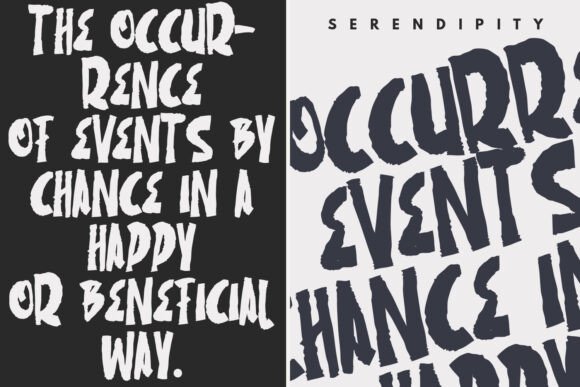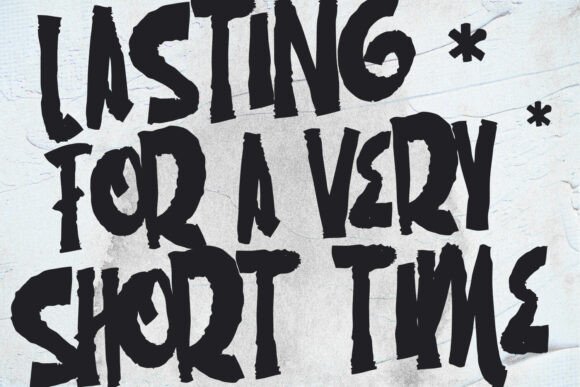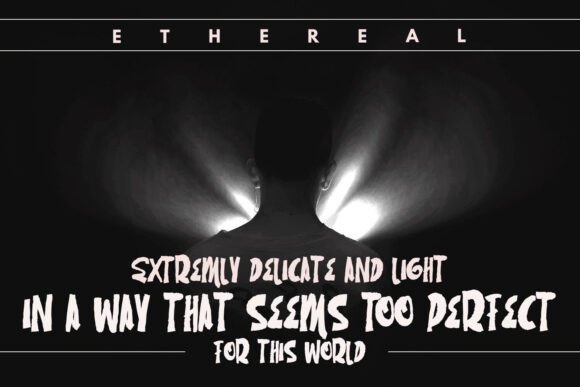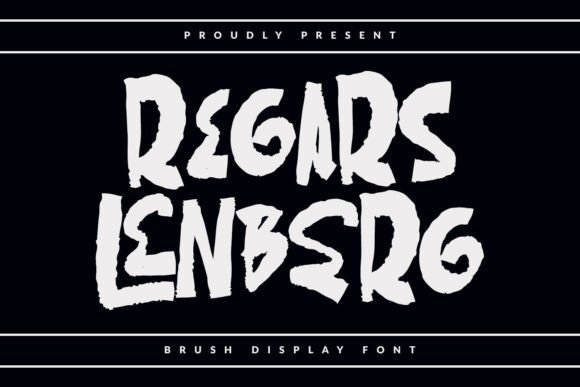
Introduction to Regars Lenberg Font
Regars Lenberg Brush Texture Display Font.
Give your designs an authentic handcrafted feel Regars Lenberg Brush Texture Display Font is perfectly suited to logo, stationery, branding, typography quotes, magazine or book covers, website headers, clothing, branding, packaging design, restaurant, and more.
Why Choose Regars Lenberg Font?
Regars Lenberg Font offers exceptional quality and versatility, making it a valuable addition to your design toolkit. Whether you’re creating for personal projects or commercial use, Regars Lenberg Font delivers professional results.